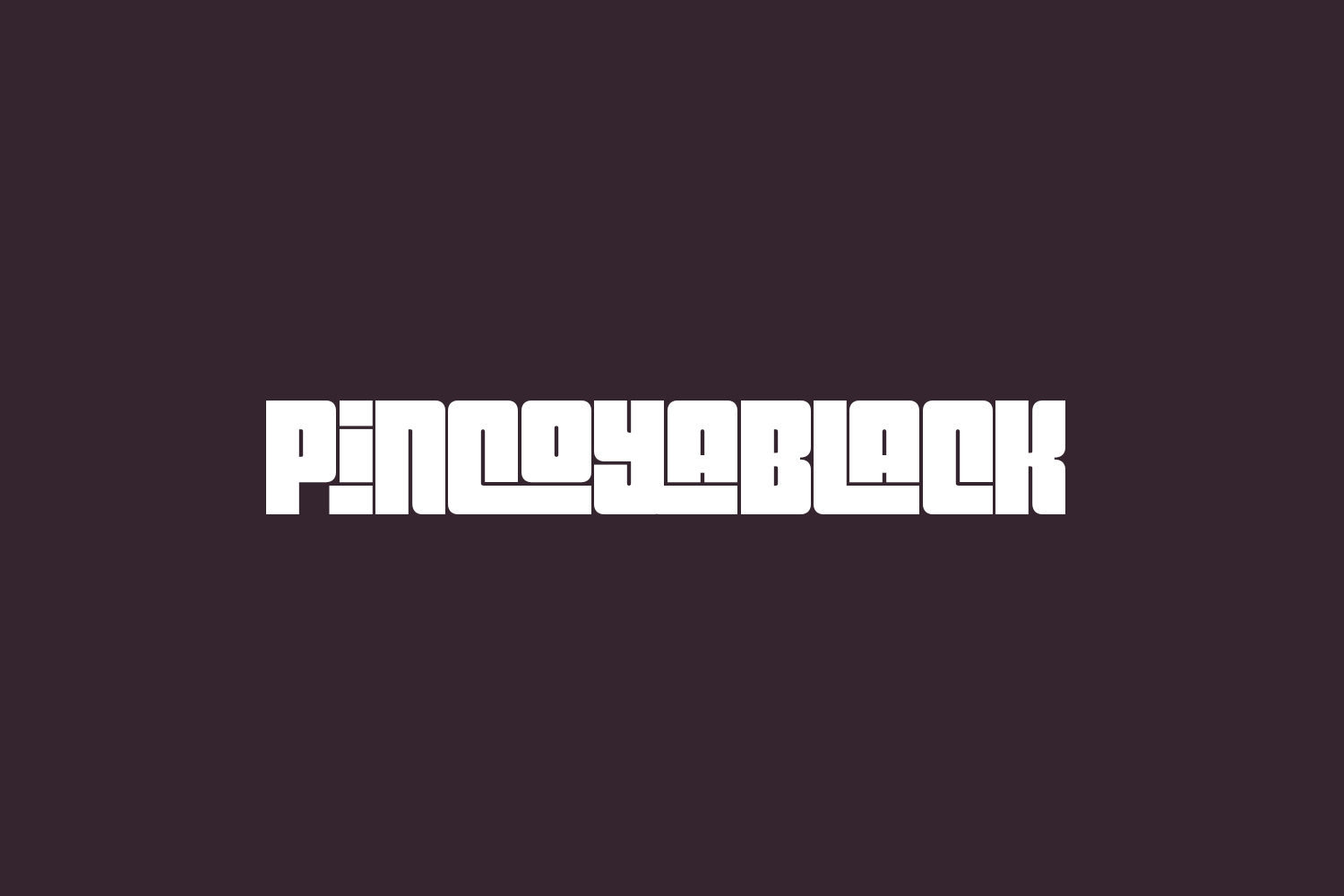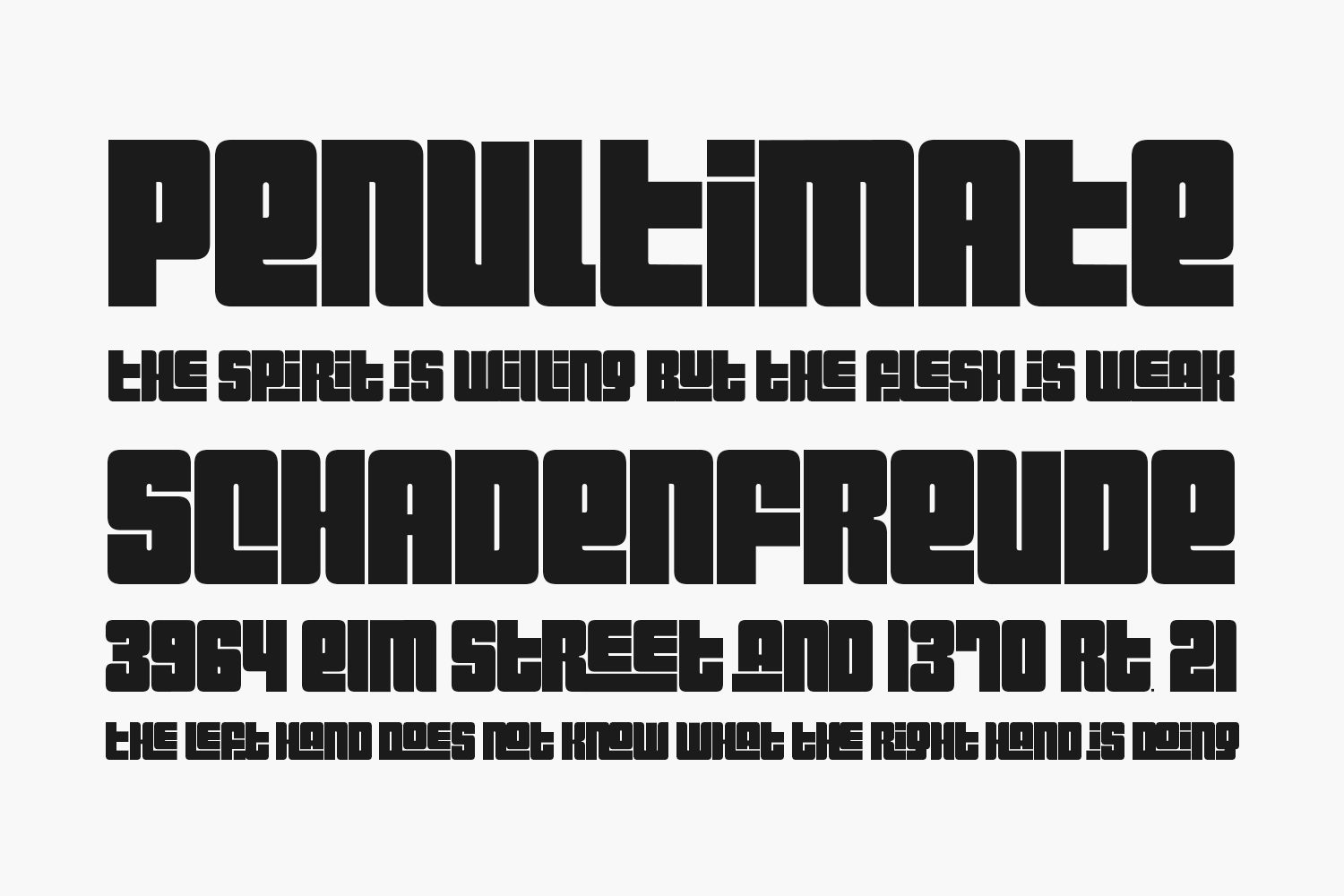
Pincoya Black Free Font is an experimental font inspired by the lettering on a poster of the Spanish civil war and influenced by the typography of Fransisco llanquihue of Galvez. Pincoya is a single font, but has many alternate characters and ligatures.